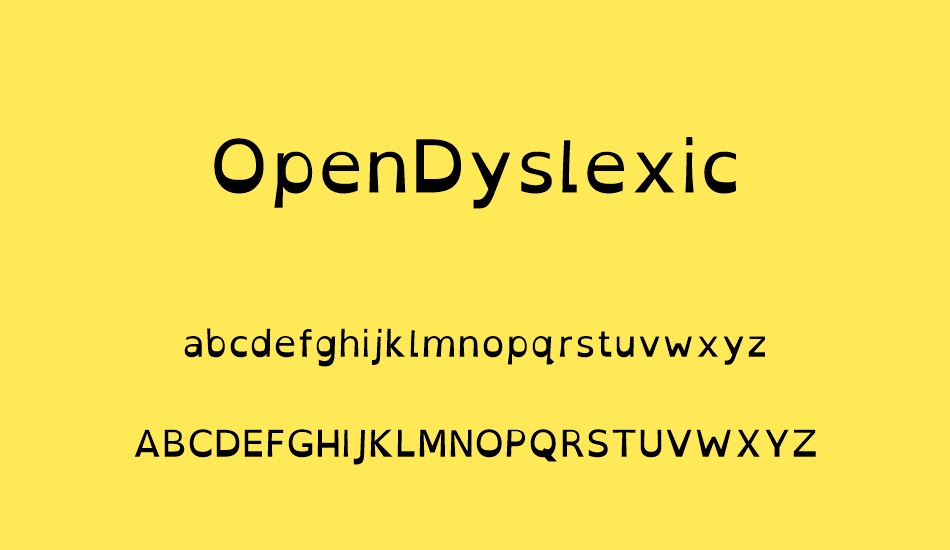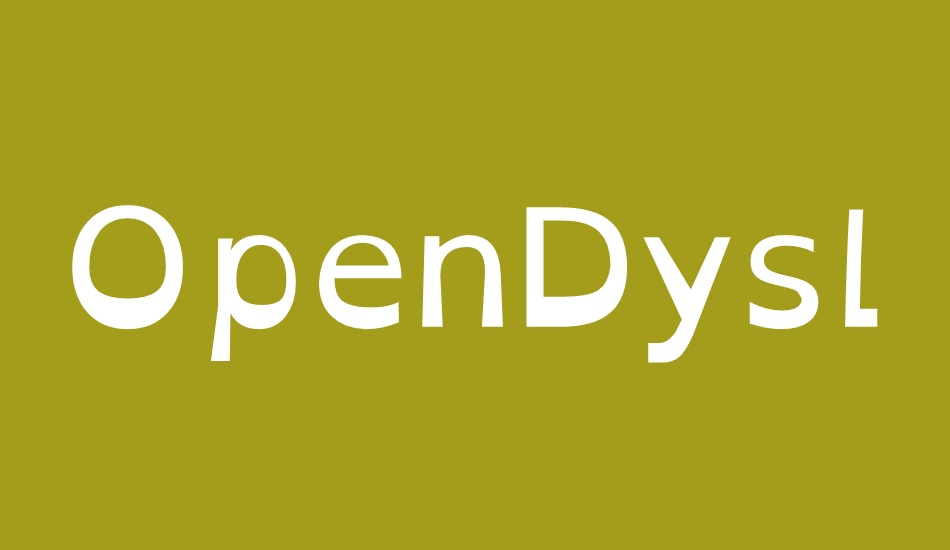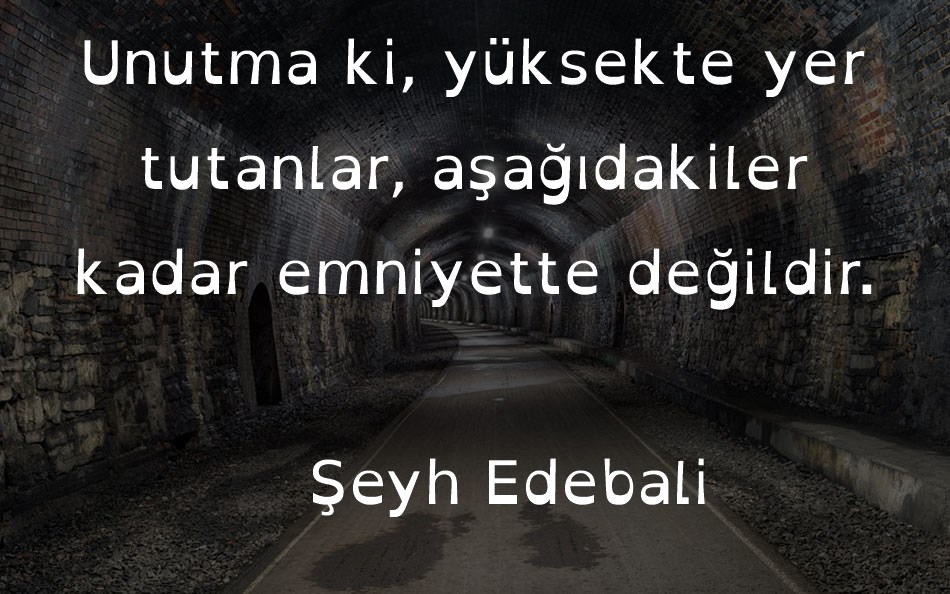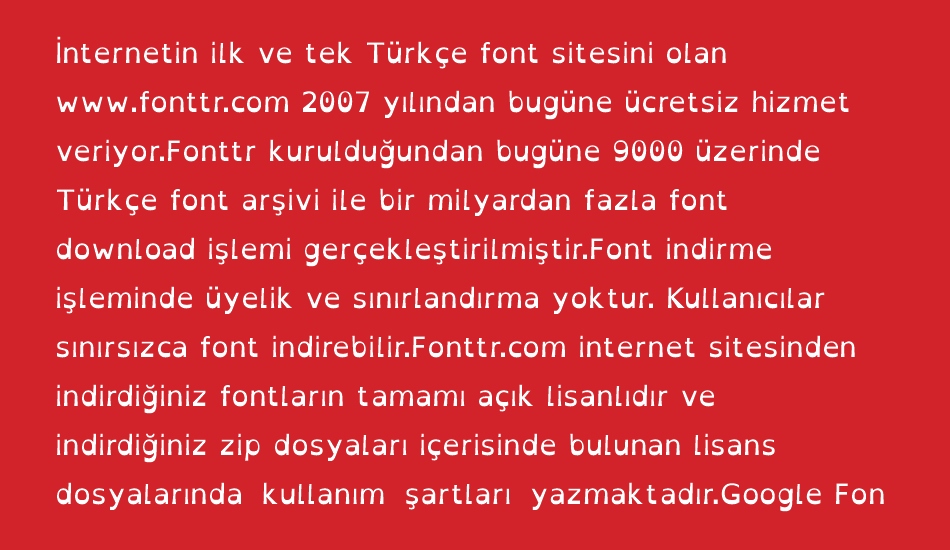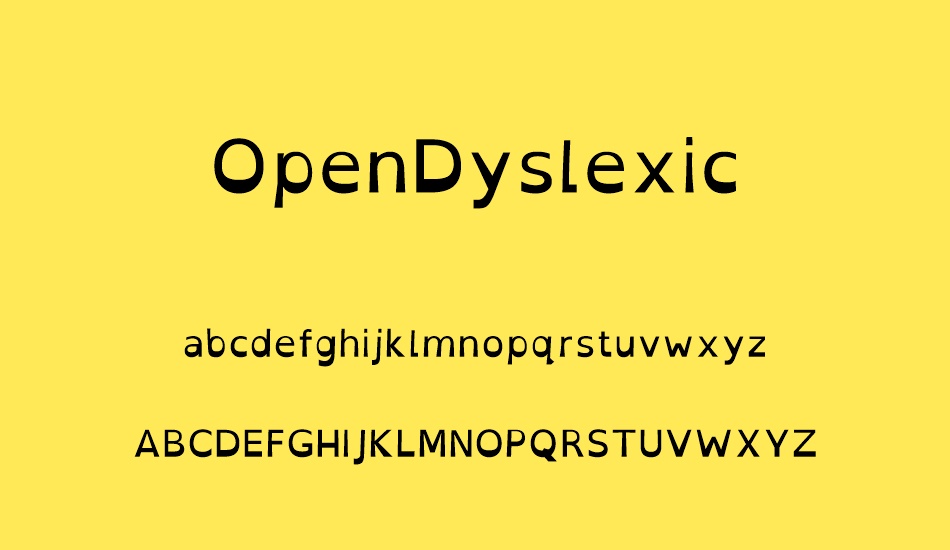
OpenDyslexic font
Typeface/font to help readability, and help readability for some of the symptoms of dyslexia.
Your brain can sometimes do funny things to letters. OpenDyslexic tries to help prevent some of these things from happening. Letters have heavy weighted bottoms to provide an indication of orientation to make it more difficult to confuse with other similar letters. Consistently weighted bottoms can also help reenforce the line of text. The unique shapes of each letter can help prevent flipping and swapping.
The italic style for OpenDyslexic has been crafted still be able to be used for emphasis while still being readable.
It is based on Bitstream Vera Sans because of the nice license it has.